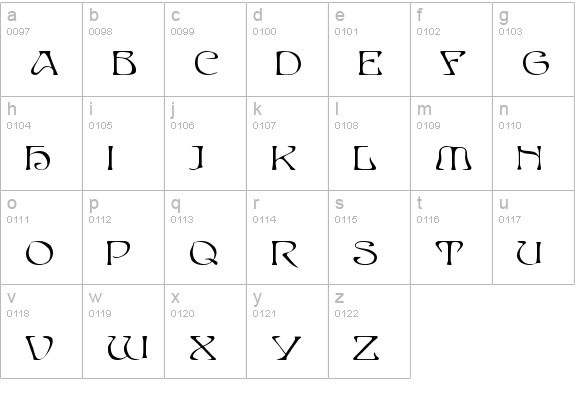
Lorient Font Details
Lorient font is a stunning and elegant typeface that exudes sophistication and style. With its sleek lines and modern design, this font is perfect for a wide range of design projects, from branding to editorial layouts. The timeless appeal of Lorient font makes it a versatile choice for both print and digital applications. What makes Lorient font even more appealing is that it is available for free download at FontsMarket.com. This means that you can easily access this beautiful font and use it in your projects without any cost. Whether you are a designer looking to add a touch of class to your creations or a business owner wanting to elevate your branding, Lorient font is a fantastic choice. Don't miss out on the opportunity to enhance your design work with the exquisite Lorient font. Download it for free today and start creating stunning visuals that are sure to impress.